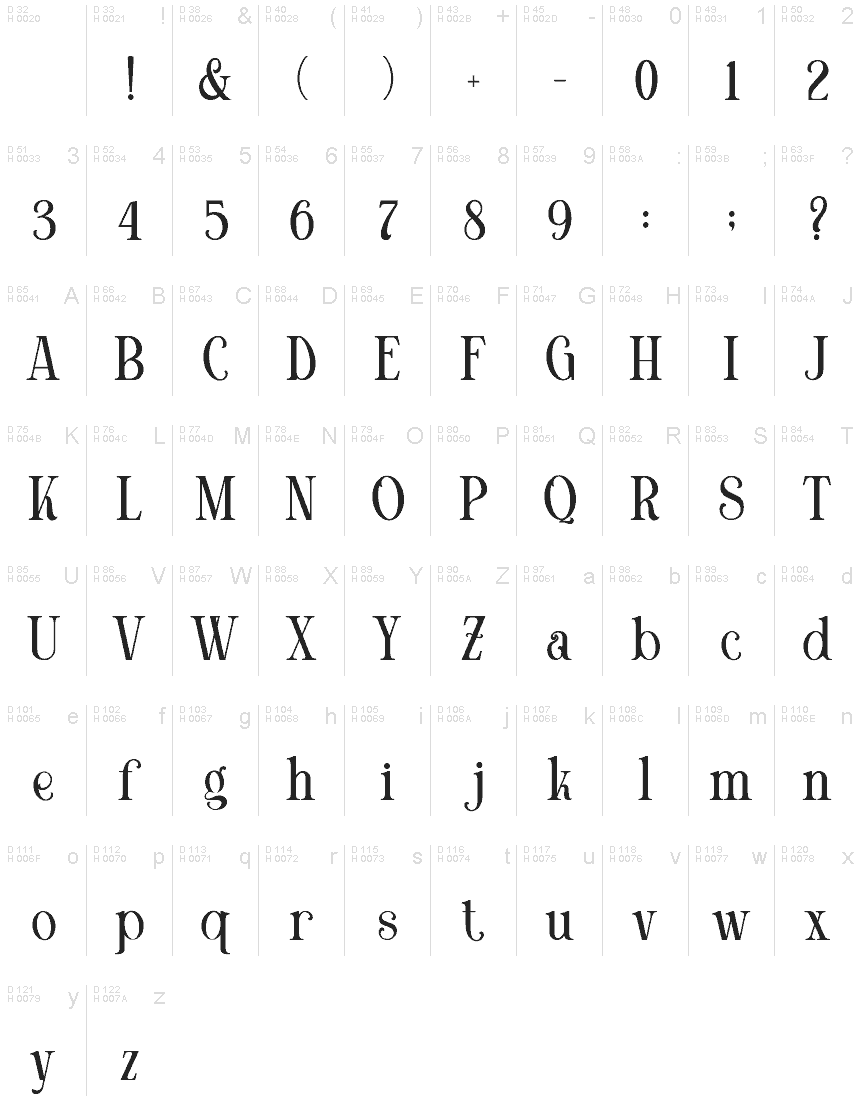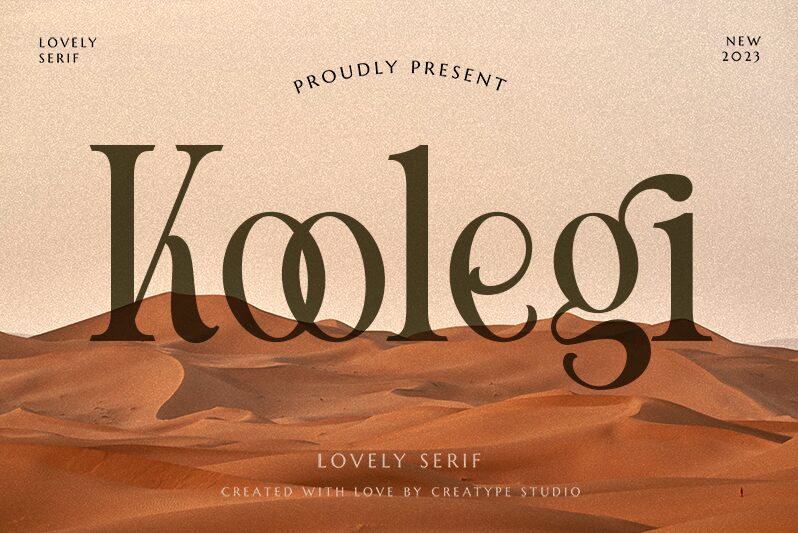
Koolegi
Koolegi font is a condensed serif font by Creatype Studio with elegant characteristics rooted in classicism. A sophisticated font with ornamental elements, it effortlessly evokes a historical aura reminiscent of traditional typography. All its letters subtly unify into a timeless composition that translates inner refinement and luxury.
Koolegi is beneficial for branding across various industries such as luxury, jewelry, cosmetics and beauty. It can decorate books by adding an artistic appearance to covers or changing the whole reader experience through creative headings. Try it on editorial projects like magazines and newspapers or on stationary items like business cards, invitation cards etc.